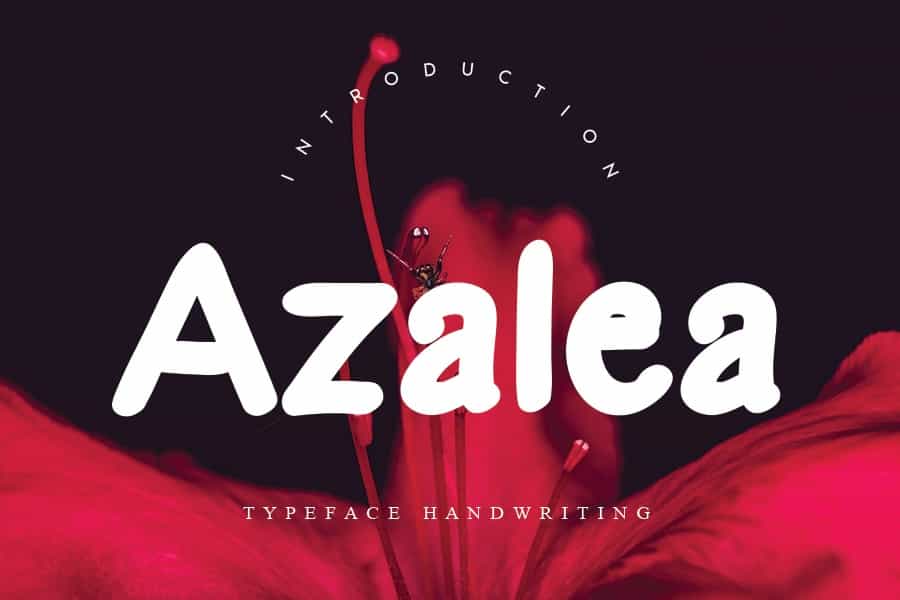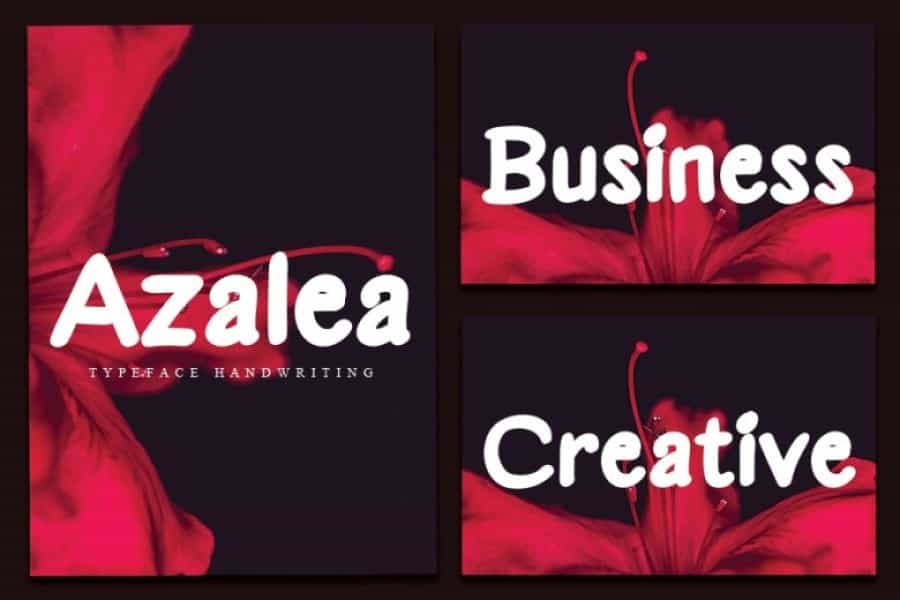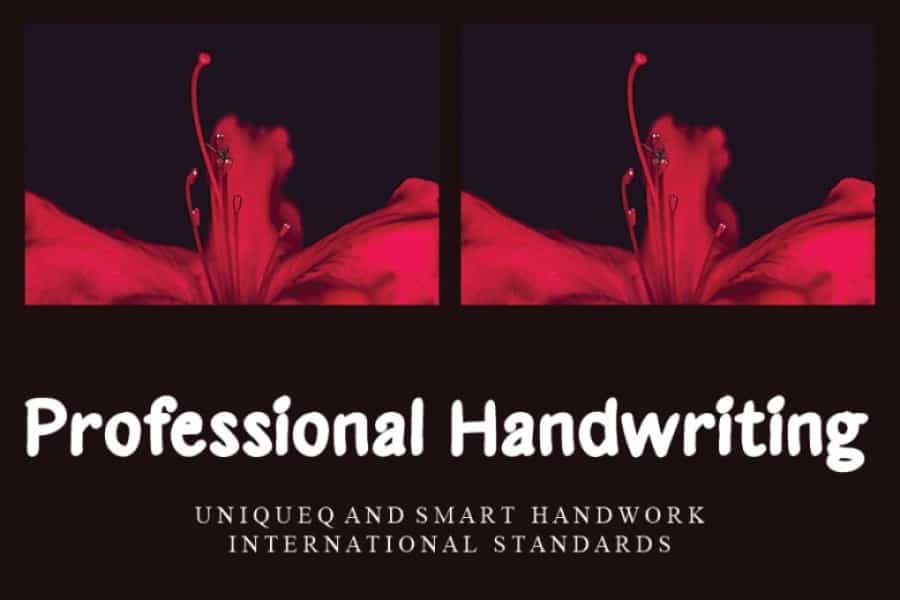
Azalea is a beautiful handwritten font created with a lot of attention. Simple yet quirky this font can be perfect for any branding task that includes logos or social media or any do-it-yourself creative task.